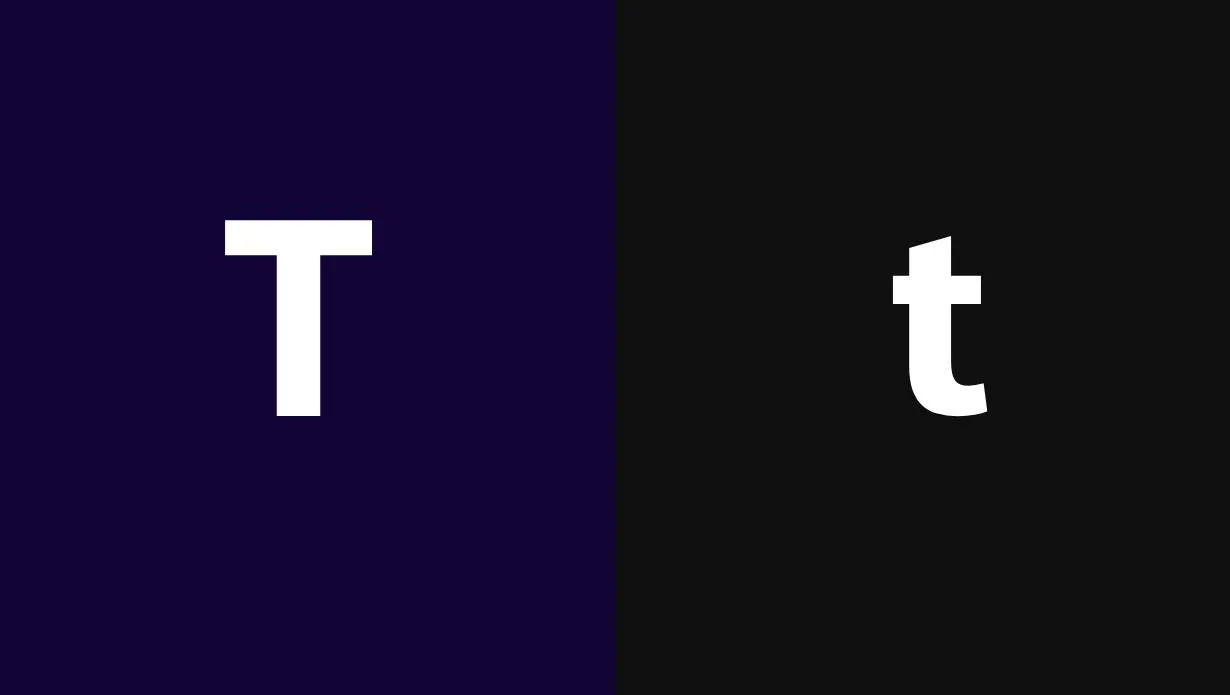
Tablet Gothic Font is a modern and versatile sans-serif typeface, designed for clear and efficient communication. Tablet Gothic Font is designed by José Scaglione and Veronika Burian of TypeTogether, a renowned type foundry.
It’s popular for editorial and digital projects. Perfect for newspapers, magazines, websites, and any project that requires a clean and legible font. This font can be also used in Canva, Adobe Photoshop, and CSS (Cascading Style Sheet).
This font also has pairing characters that are best to combine with other sans-serif fonts like Helvetica Font.